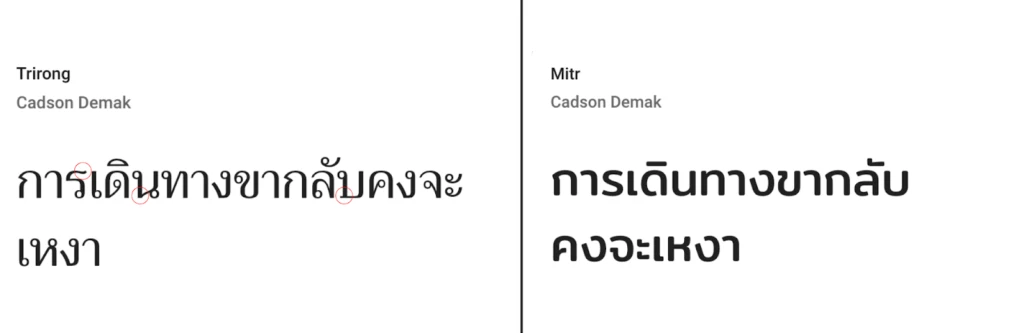
Or if you just want to launch your business in Thailand, how do you select the right font for your brand?
It may seem like a small detail for you. However, the choice of your brand typeface – and your branding in general – may strongly impact your turnover.
So how can you process?
Firstly you have to understand the Thai spoken & written language particularities and the country’s culture.
Secondly, you need to have your Branding fundamentals.
Then you would be able to choose the right Thai font for your Branding. In function of the Thai typeface you would select, it gives different characteristics and meanings to the message you will be sharing.
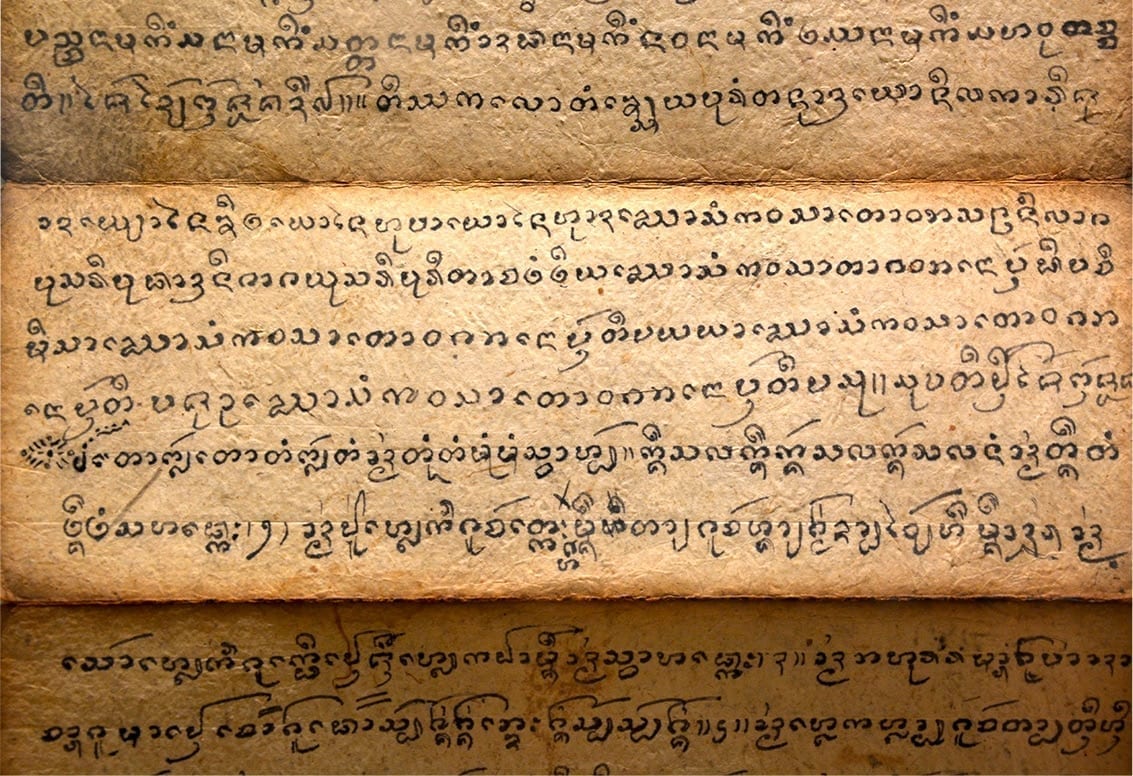
1. Special features of the Thai language & typographical system
Thai is a language spoken by 60 million people in Thailand and around.
Like other languages, Thai has several different regional dialects depending on which parts of Thailand you are.
For example, the “Standard” Thai dialect is spoken in the Central Region, where Bangkok is located. Or the Isaan, a North-Eastern Thai dialect, which shares many similarities to the Laos language.
Thailand Map Infographic 2019 © Asia Media Studio
The Thai language is known for being complicated to learn, especially for people who are not Thai-native speakers.
Although some concepts are making the language more accessible, such as the fact that the verbs are invariable. That means that verbs have no temporality and no conjugation.
Some others are more difficult such as the layers of honorifications and the 5 different tones, which can be very subtle for Estearn foreigners.
When it comes to written language, many Thai-learners find it quite challenging due to the number of consonants, combined with the diphthongs which are those gliding vowels.
Unlike the typographic system of all Western languages, the Thai font is not purely alphabetic. As an Abugida, it lies between the syllabary and the alphabet.
The characters that make up a syllable are composed of fragments, as is the Devanagari, an Indian language.
Thai language is written from left to right and has 44 characters for the consonants.
Each consonant can be accompanied by a vowel that has three different types. They can be positioned above or below and to the right and left of the consonant. Indeed, there is no distinction between lower and upper cases in Thai written language.
In contrast to the English Language, spaces between words are rarely present in Thai written language. Indeed, different terms are written consecutively, and spaces are used for separating different sentences.
To better understand, here is a concrete and visual example of the sentence “I am hungry”
1st Syllable : High Class Consonant (ผ) + Short Vowel (o) + Sonorant Final (ม) = Rising Tone
2st Syllable : High Class Consonant (ห) + Short Vowel (ิ) + Sonorant Final (ว) = Rising Tone
3st Syllable : High Class Consonant (ข) + High tone mark (้) = Falling Tone
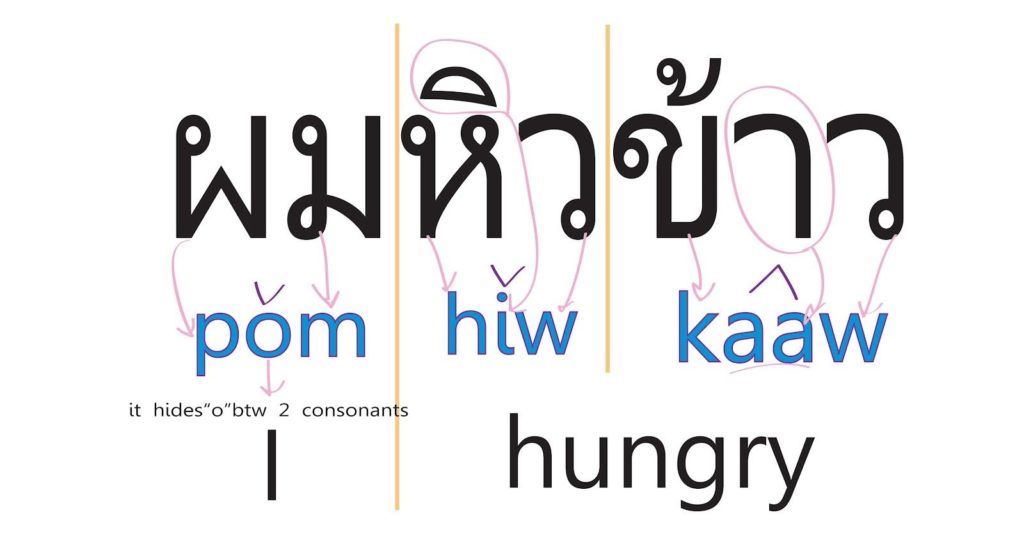
2. The Thai font particularities
A particularly typical feature of the Thai fonts is its small circle-shaped line endings, which come from the Traditional Thai written language. They aimed to improve readability.
Traditional Thai Font © Asia Media Studio
Anuthin Wongsunkakon, a font designer, compares these circle endings to the serifs of the Latin alphabet.
He used this similarity to create a particular font that can display both Thai and Latin characters without losing unicity and readability: The Helvetica font. It is the perfect harmony between the Latin original alphabet and the modern Thai font with its sober and unadorned design.
Helvetica Thai font:
In recent years, however, more and more modern fonts have been appearing without these circle endings, and reading habits have begun to change.
The familiarization and acceptance of this new form of Sans serif letters have yet taken a few decades.
The renunciation of Thai traditional decorative endings opened up entirely new typographic horizons. That made it possible to assign Thai correspondence to Latin sans serif fonts- in other words; without small circle-shaped line endings.
Multinational companies such as Apple, take advantage of this kind of modern font. They use their unique in-house developed font and adapt it in Thai and in all languages.
On Apple’s website, the text font is the same “SF pro text”, for both languages.
This “technique” allows them to have a consistent and international branding identity and therefore to have an easier Localization.
But what is exactly Brand Localization?
Funny fact
Even Thailand’s government has its official font. Indeed, the Thai government created a project named SIPA Thailand’s National. They wanted to have several Thai fonts for all government organizations and public sectors.